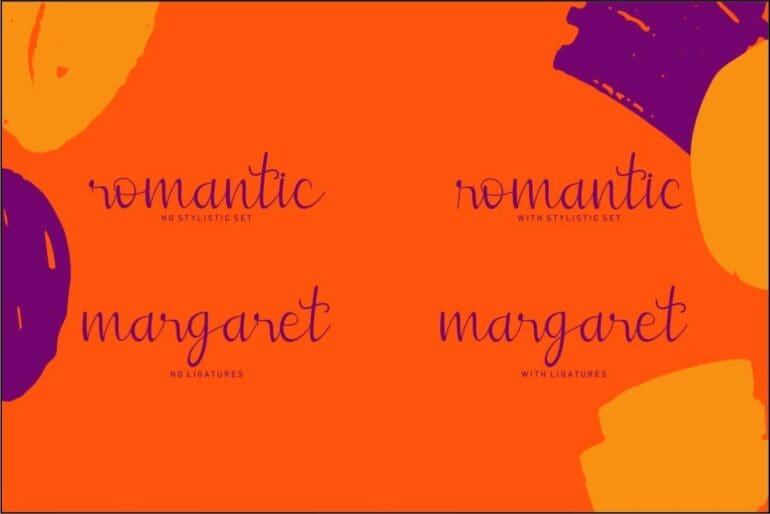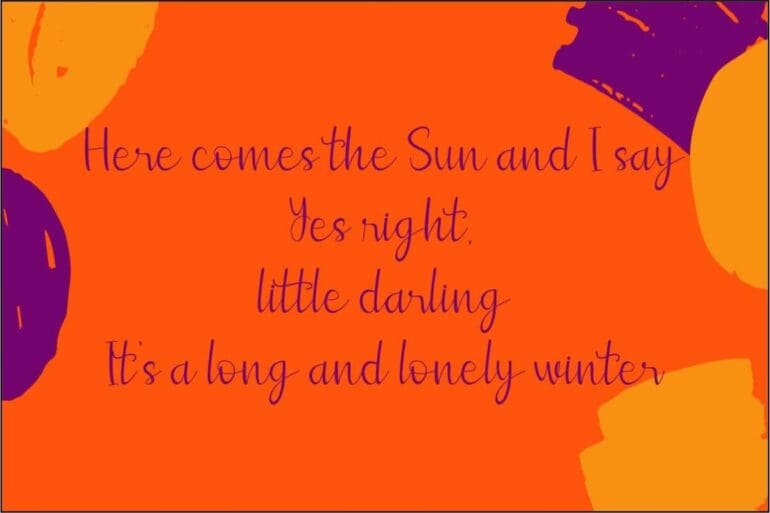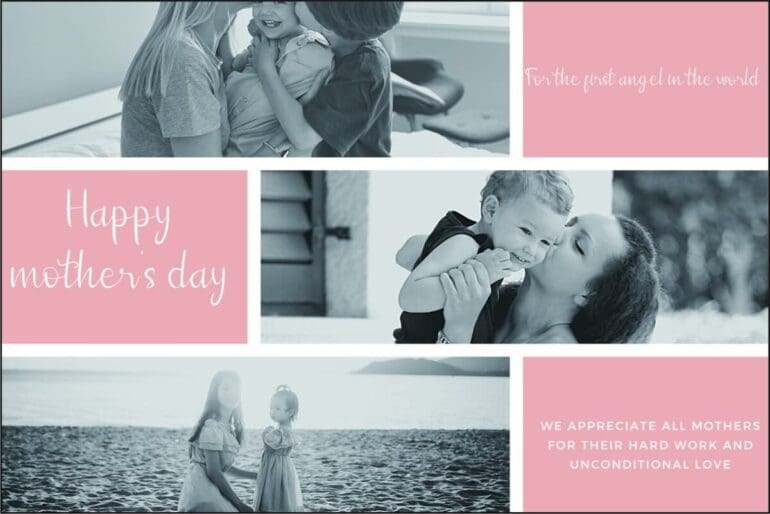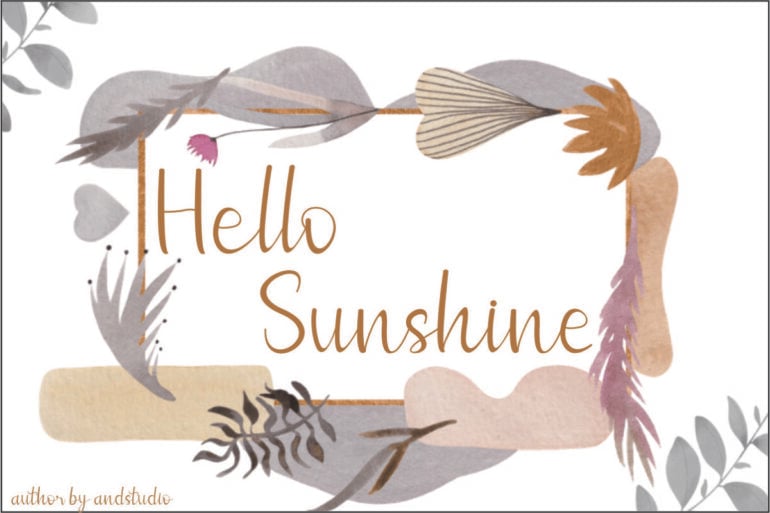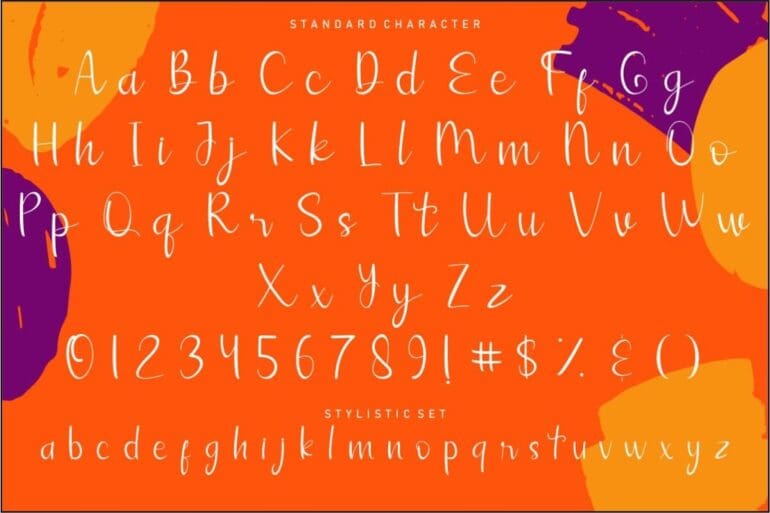
Hallo Sunshine Font
Hallo Sunshine is a sweet and beautiful modern Script Font. Featuring characters dancing along a baseline, this font will add a splash of luxury to any design project you want to create!